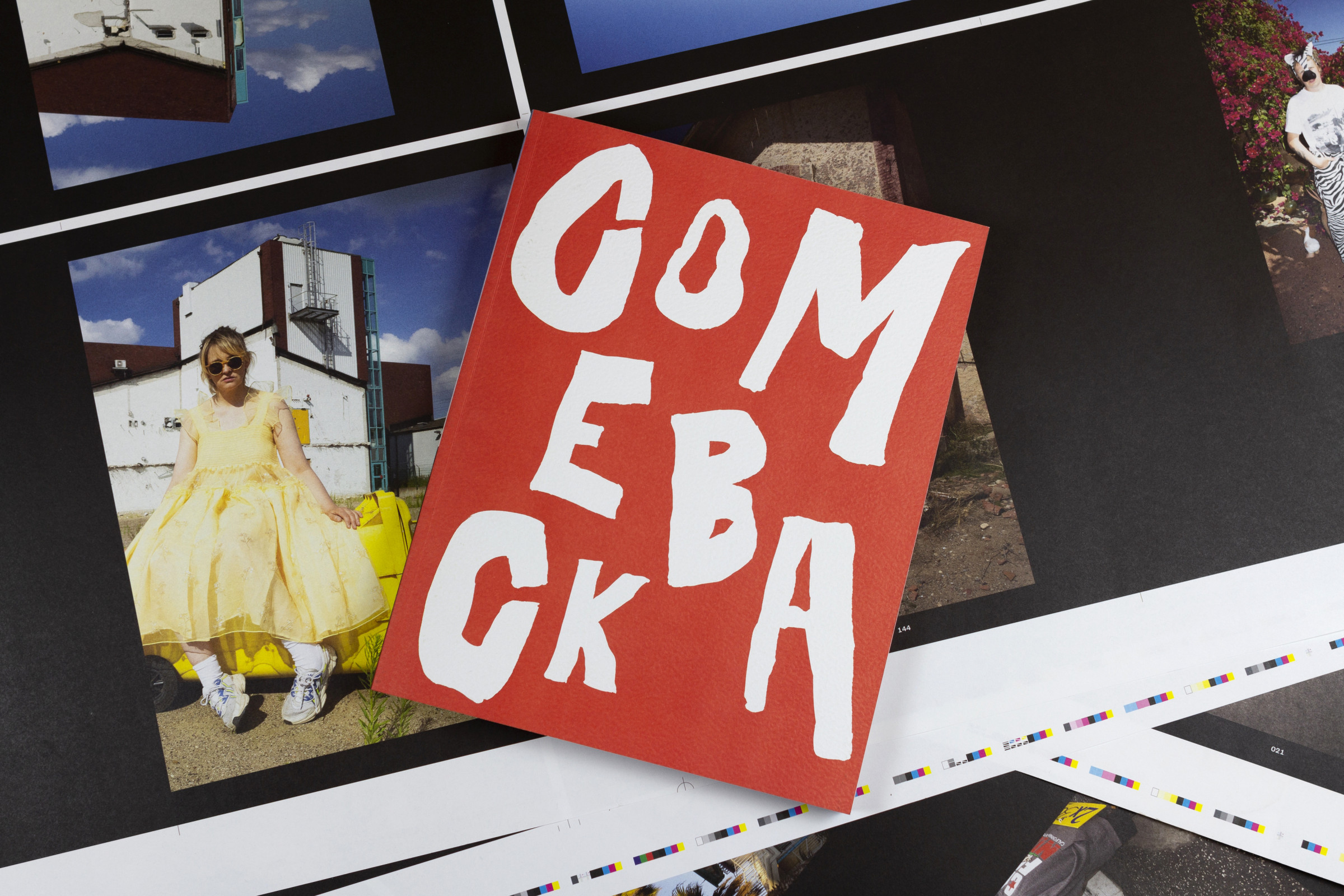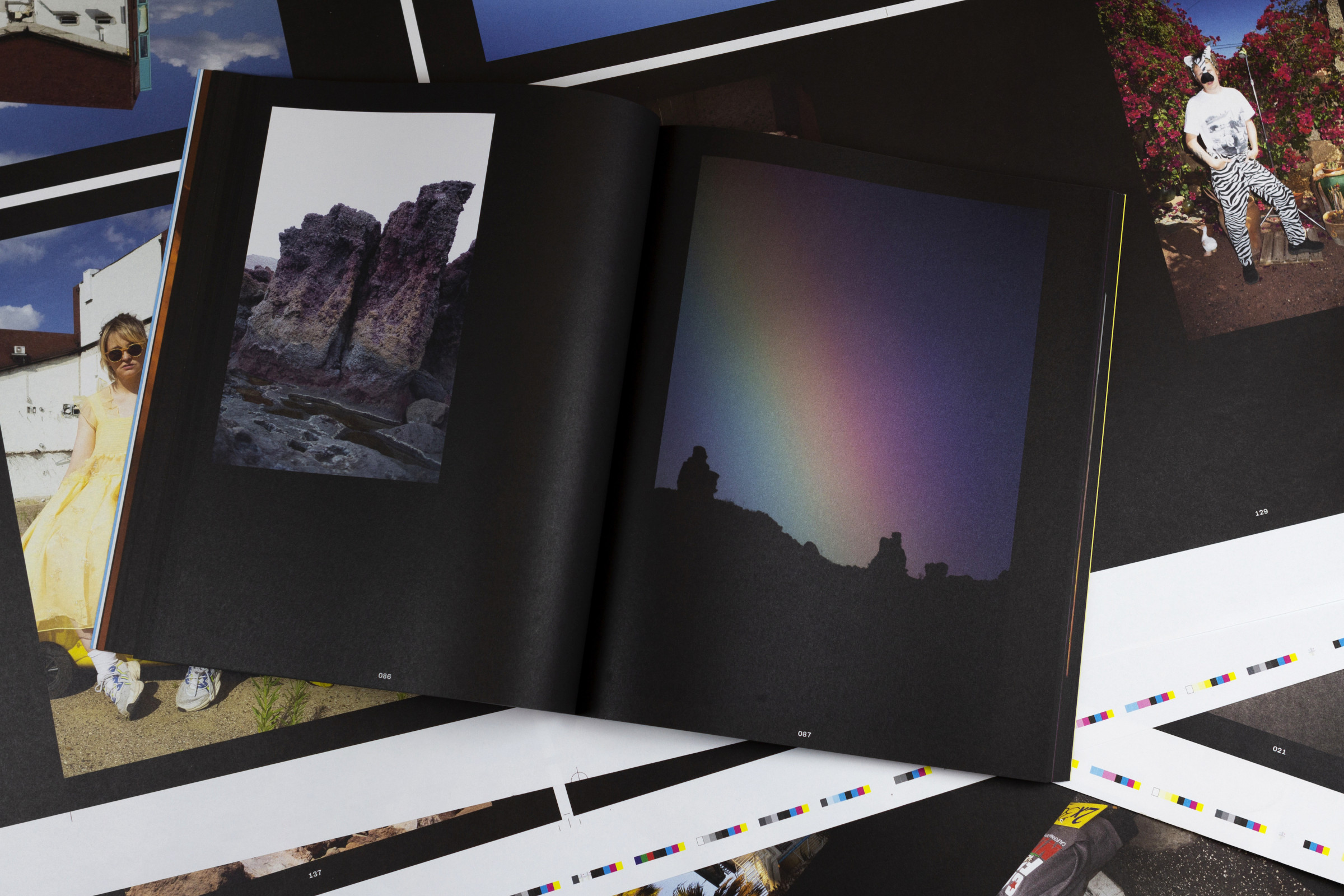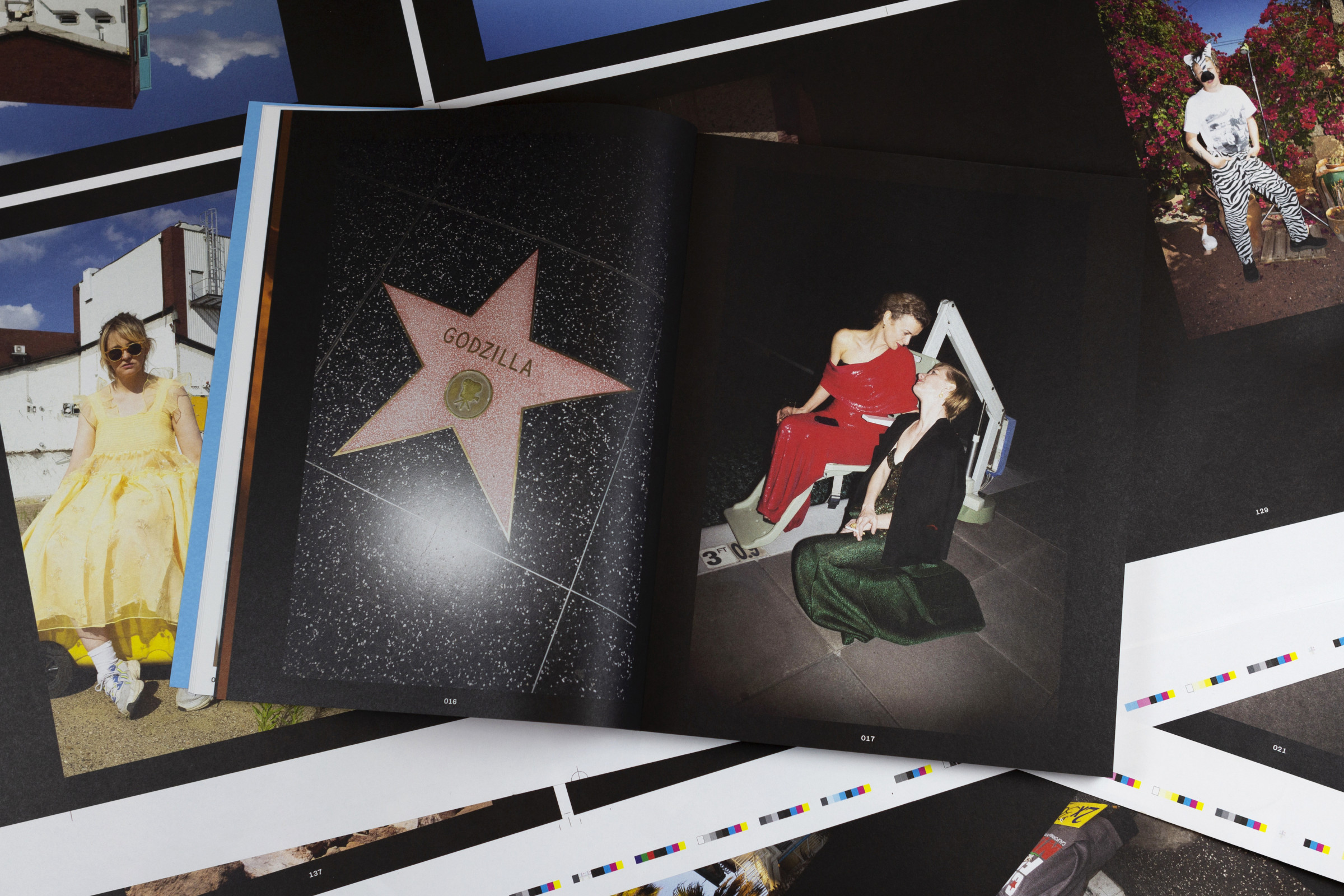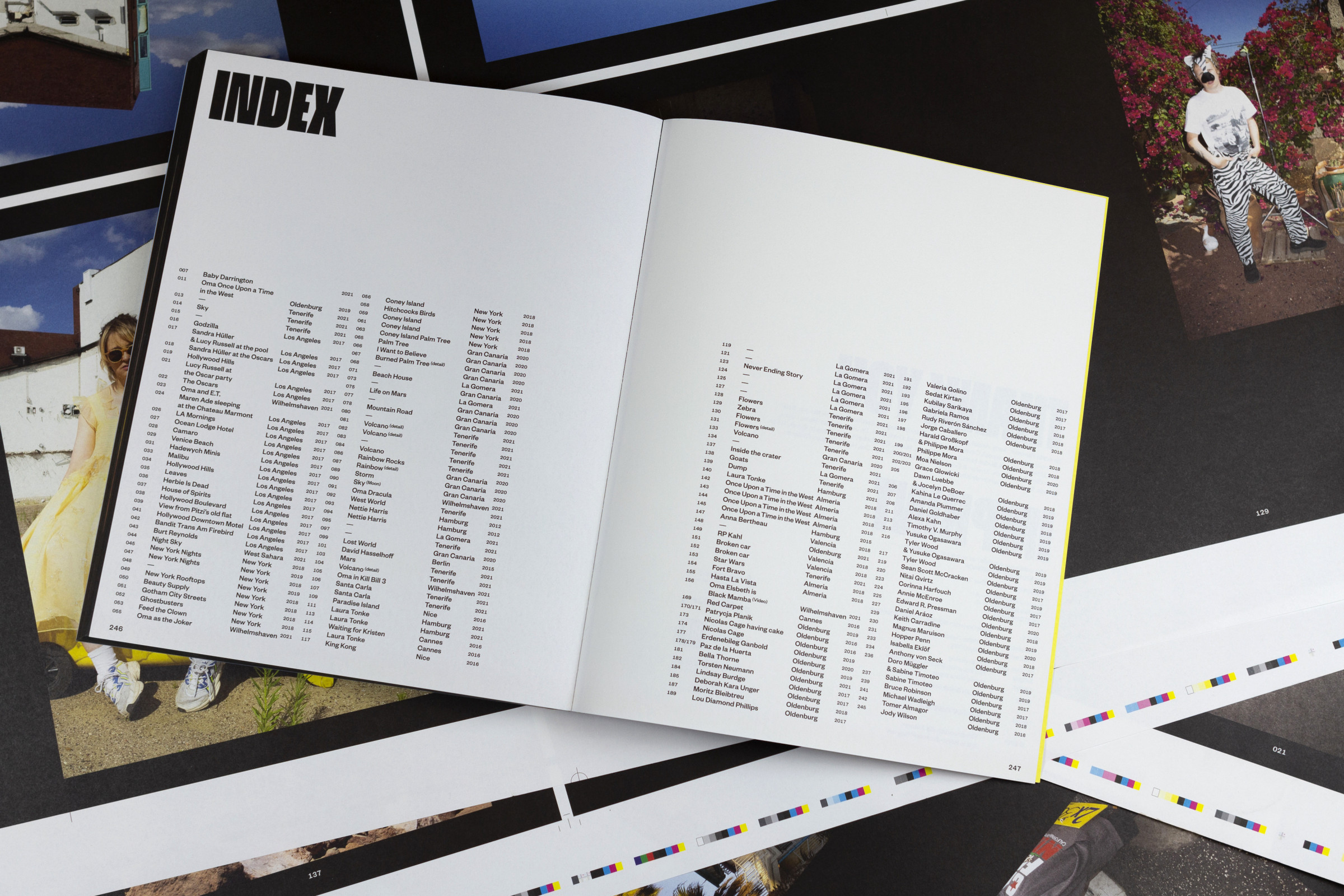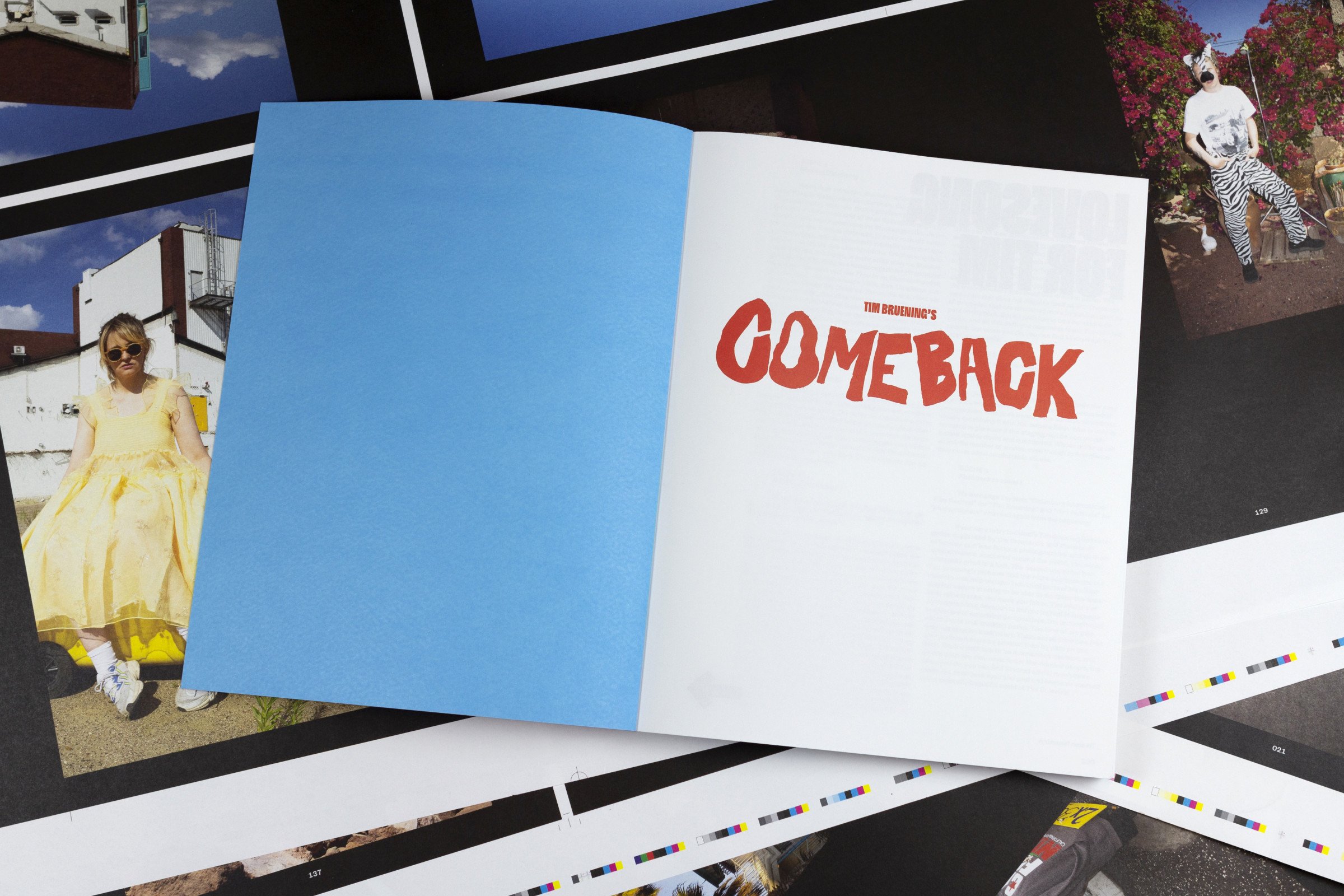
Comeback
Book
On the occasion of the exhibition COMEBACK by photographer Tim Bruening at the Horst-Janssen Museum in Oldenburg we created a publication. In his work the photographer explores the theme of cinema; showing images of stars on the red carpet in Cannes and at the Oldenburg Film Festival, accompanied by actual and soon-to-be film sets. As the icing on the cake, photographs of his grandma staged as various popular film characters are included in the exhibition.
The images are translated into the space of the book: Dark pages suggest a sense of a cinema auditorium. The cover letters are reminiscent of old film noir titles and are playfully arranged on the cover.
Typeface: Founders Grotesk by Klim Type Foundry
& Norbert by Philipp Neumeyer